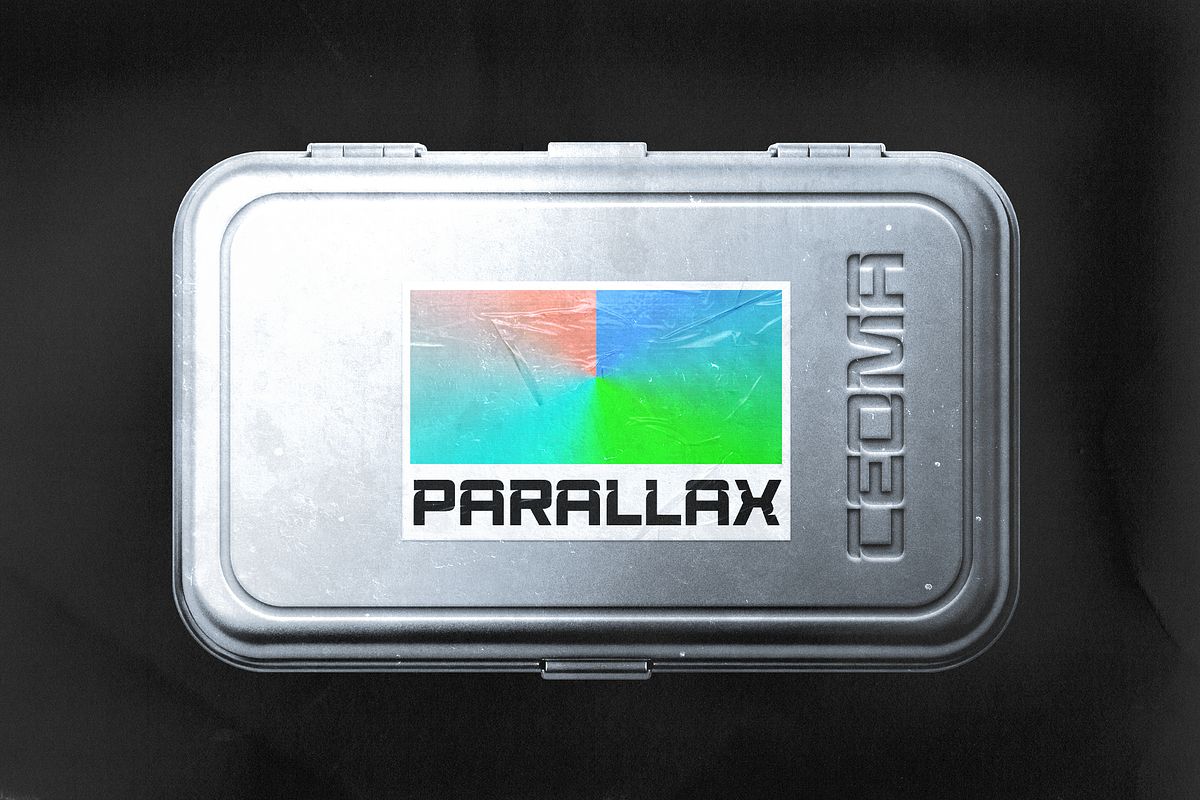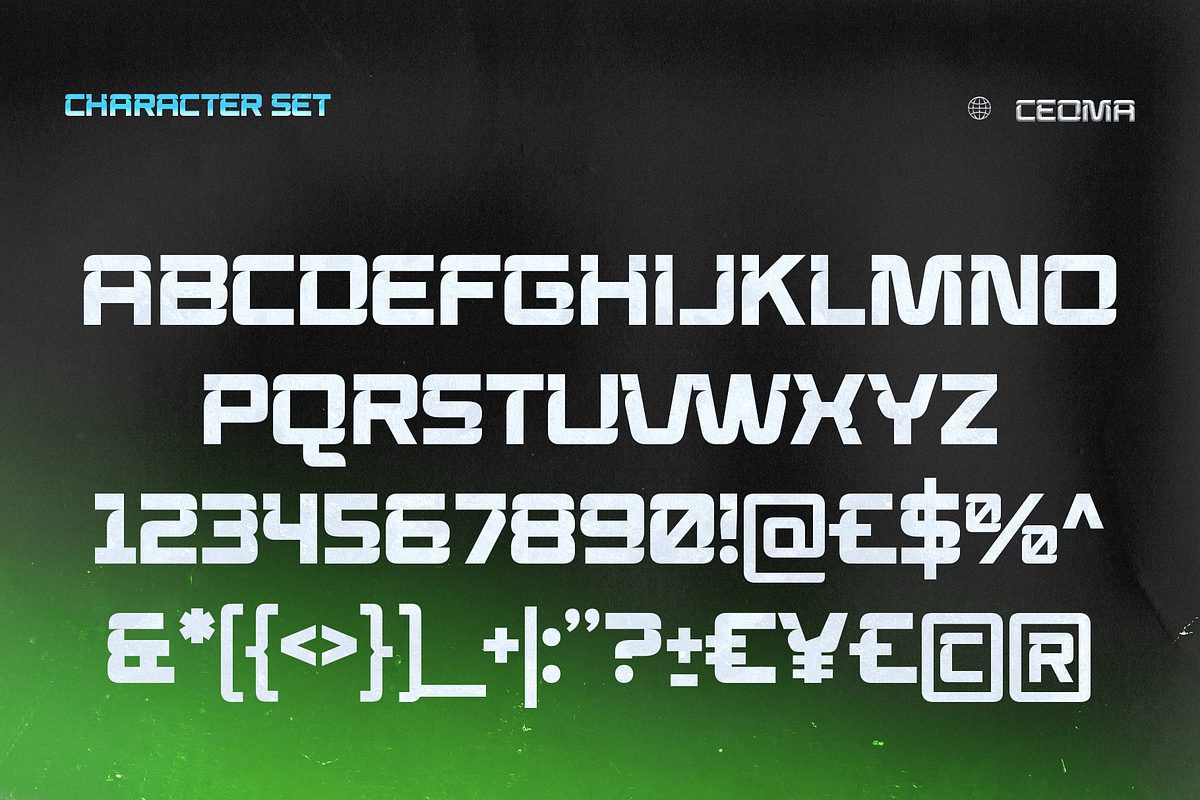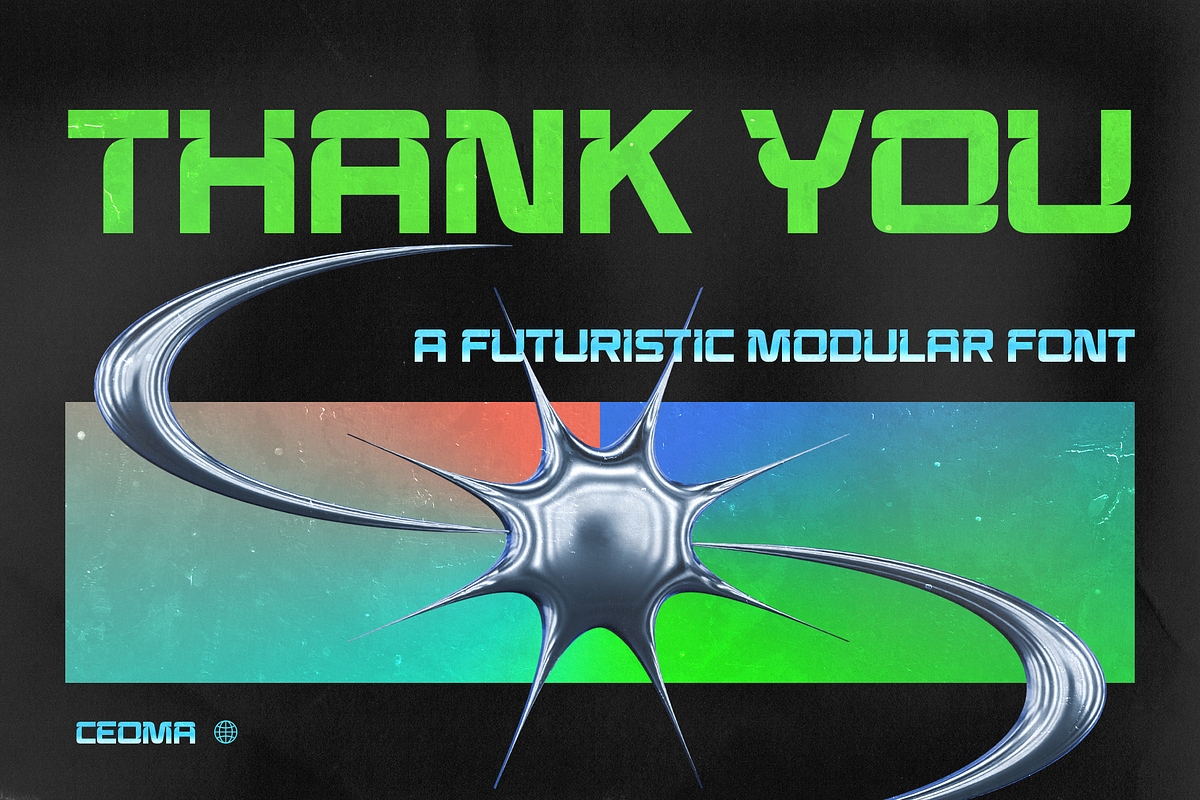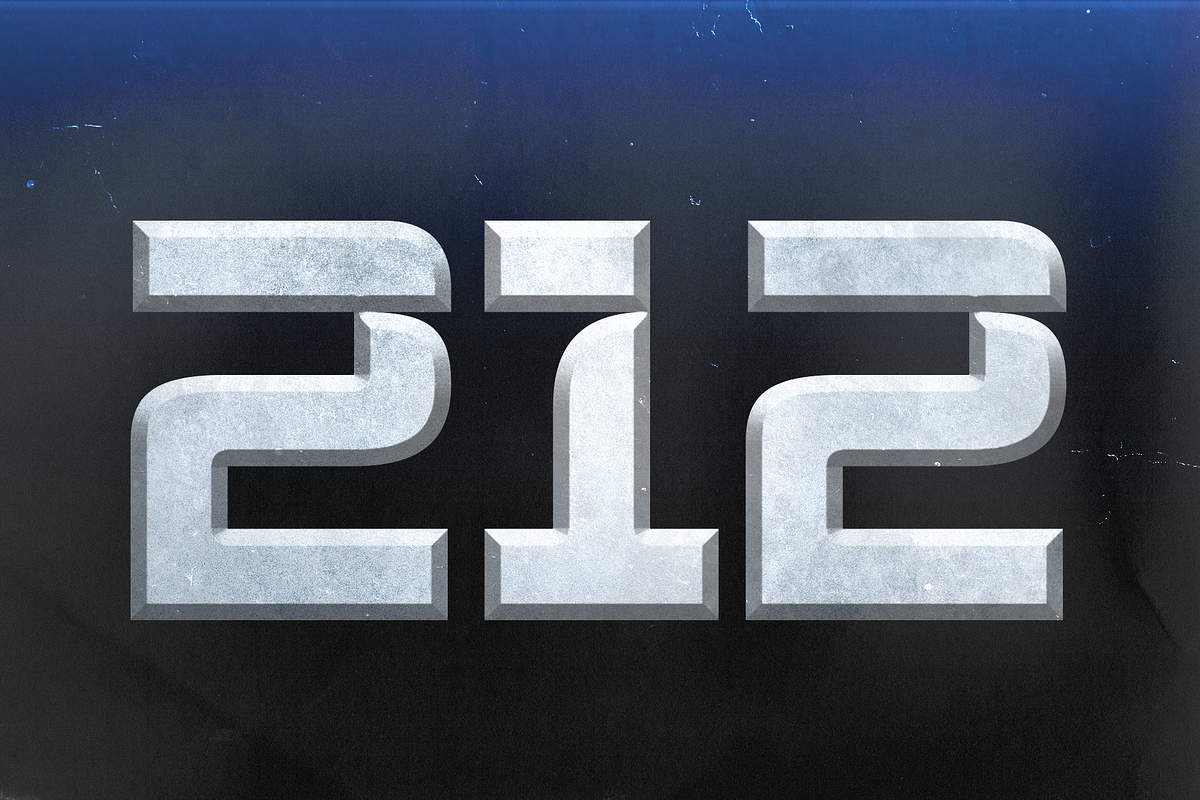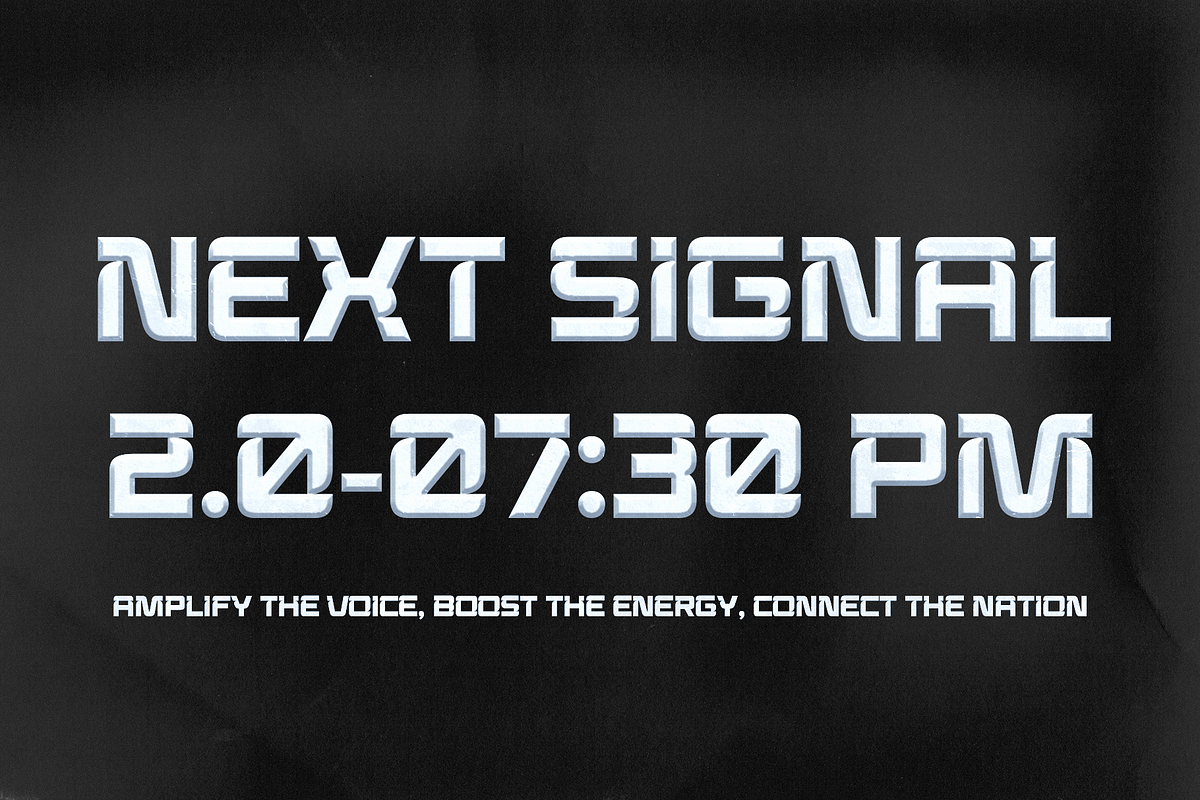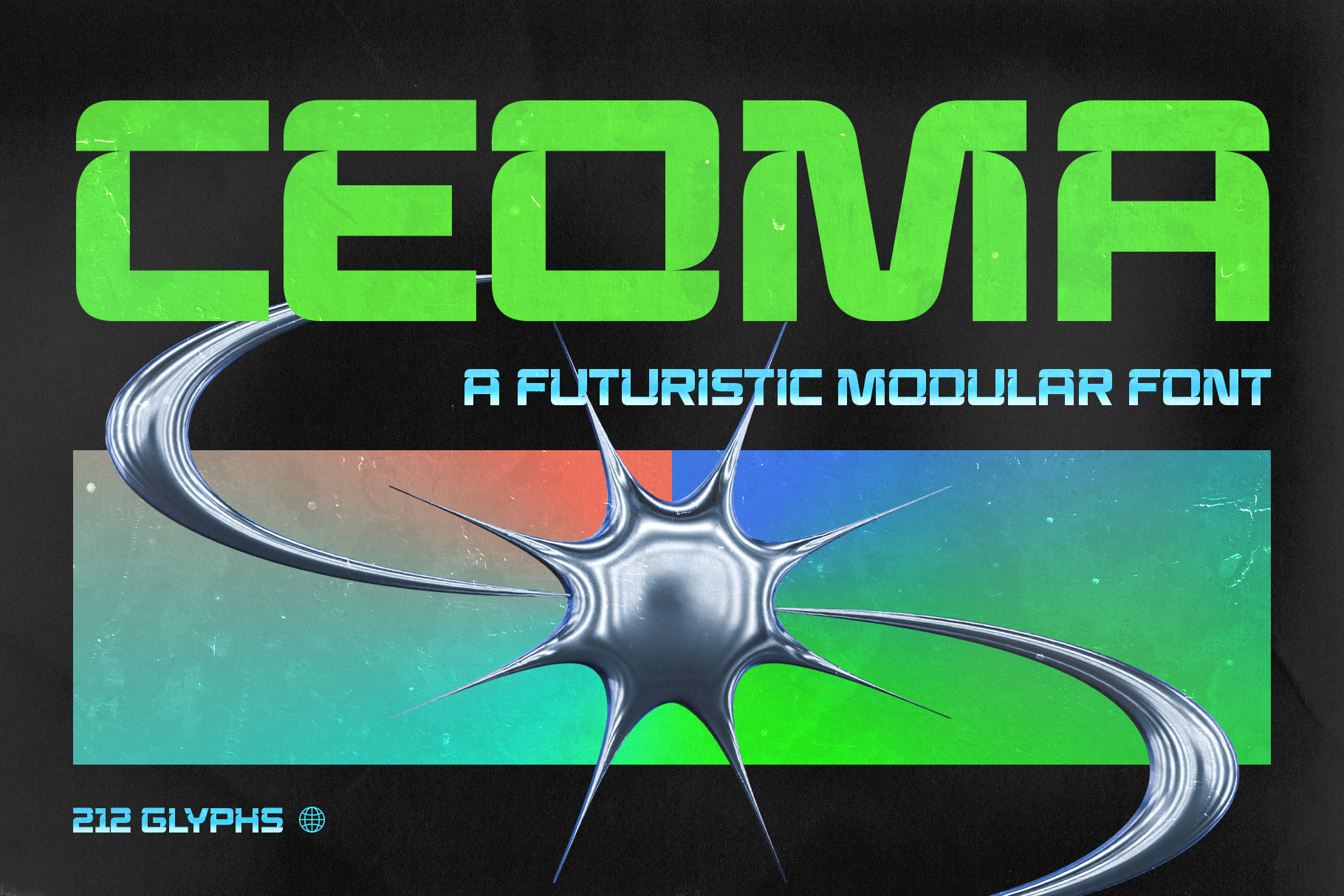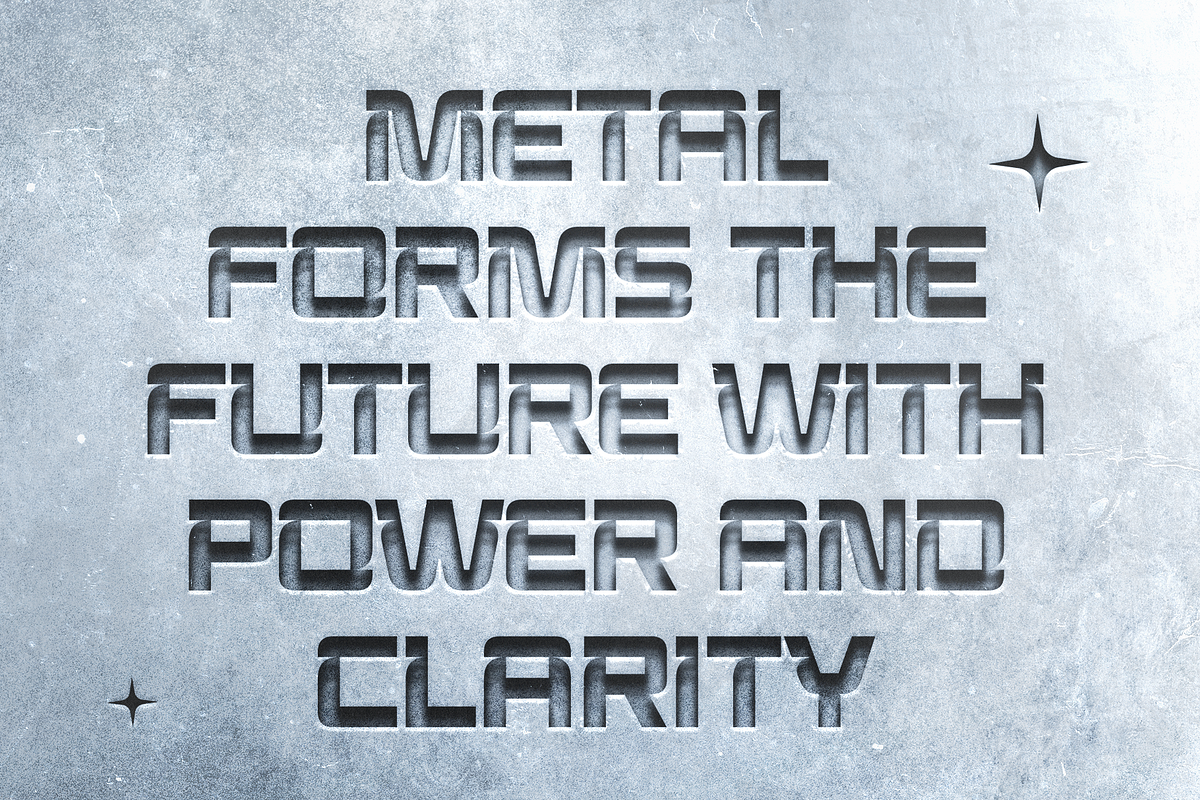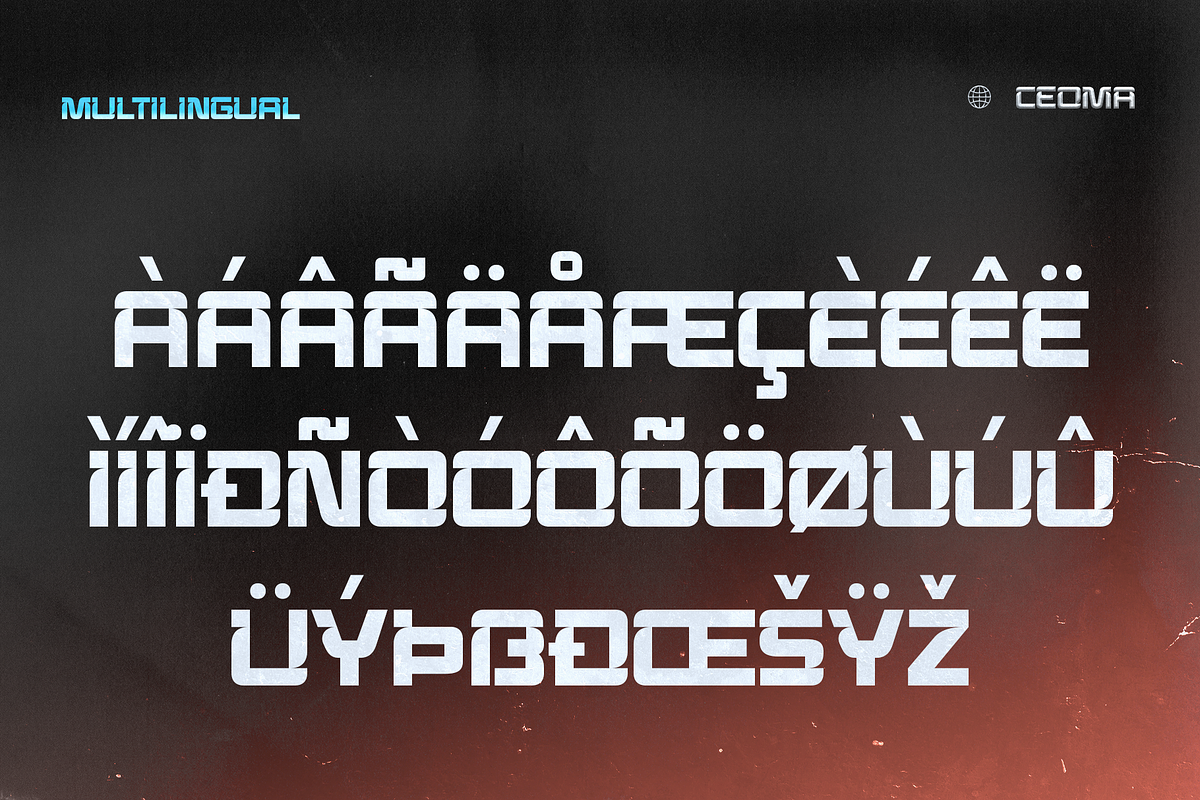
Ceoma – Futuristic Modular Font
Ceoma-A is a futuristic modular font that blends bold brutalist structure with clean modern aesthetics. Built from sharp geometric forms and engineered letter construction, this typeface delivers a strong visual presence while maintaining a sleek and contemporary feel. Its modular design creates a unique rhythm across every character, making it perfect for posters, branding, tech visuals, editorial layouts, music covers, and experimental design projects.
With its striking balance between minimal precision and raw architectural energy, Ceoma-A captures the essence of modern brutalism in a futuristic typographic form.
Character Set
Punctuation & Numbers